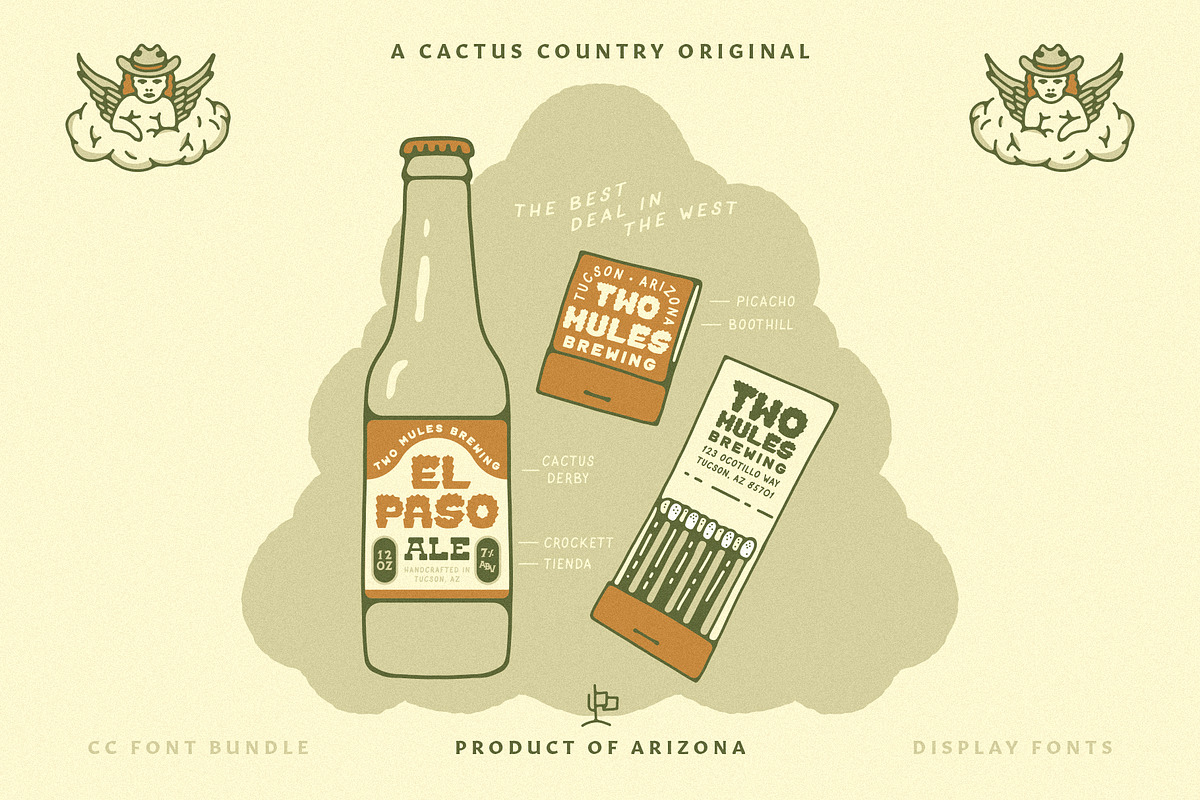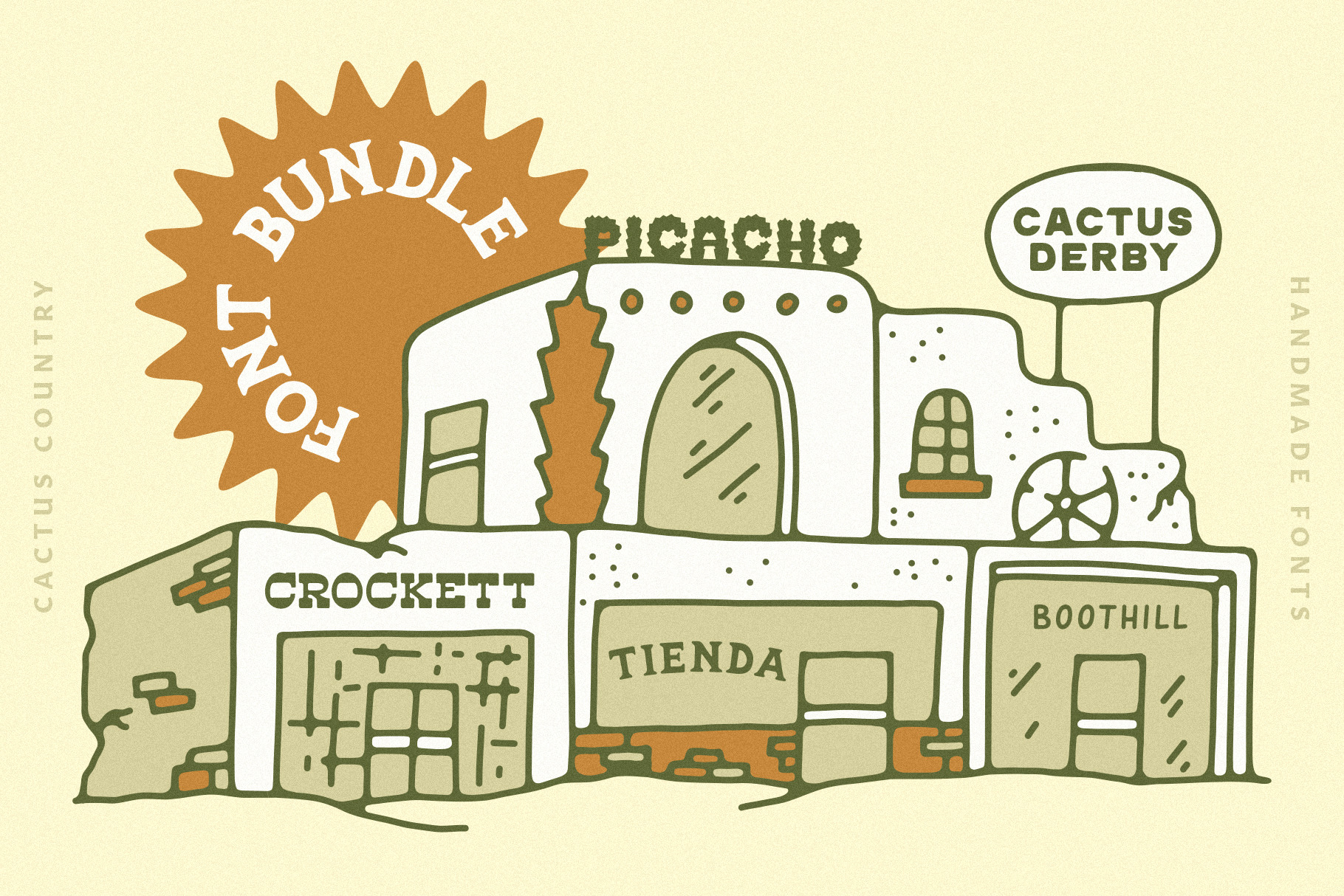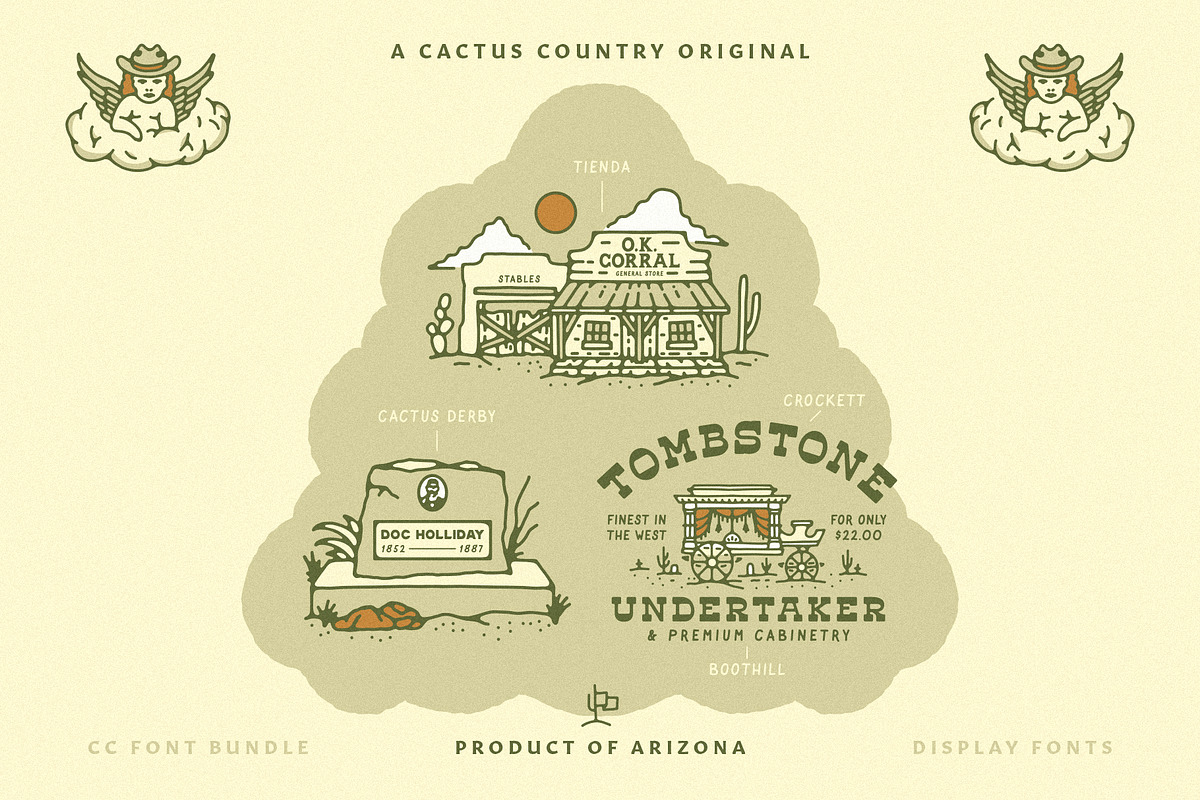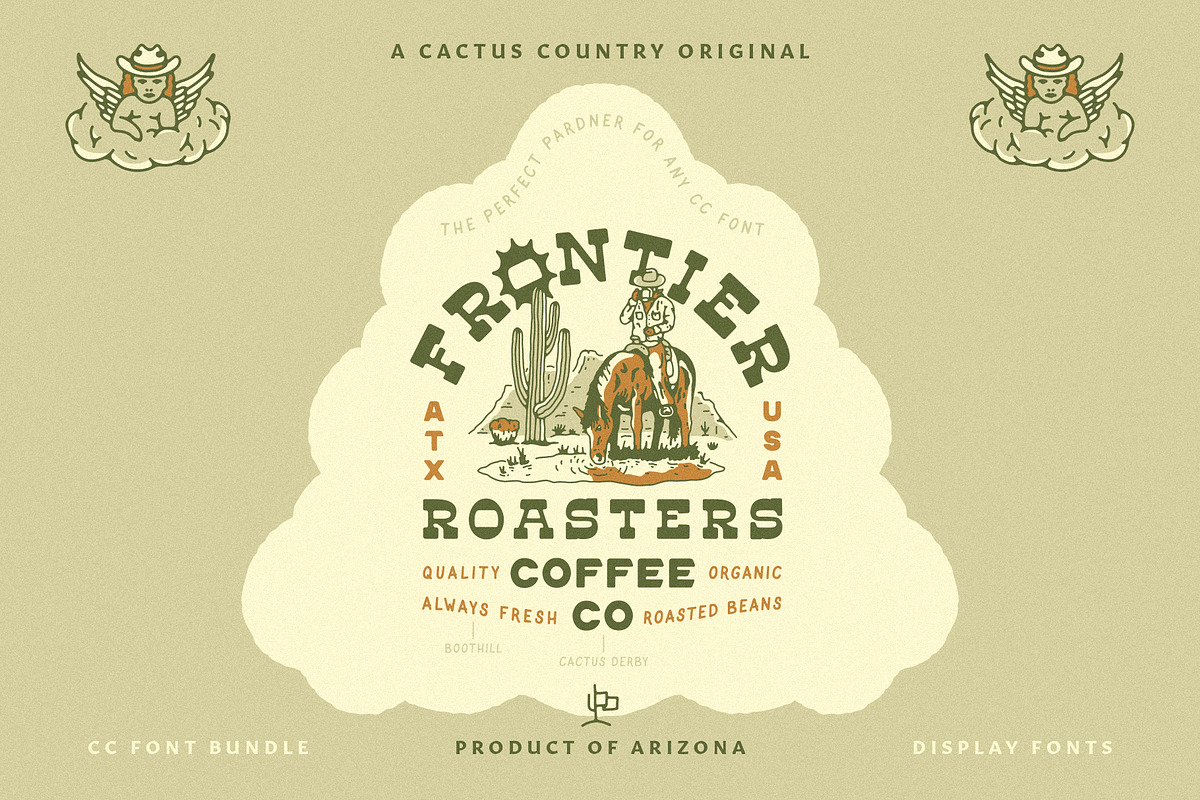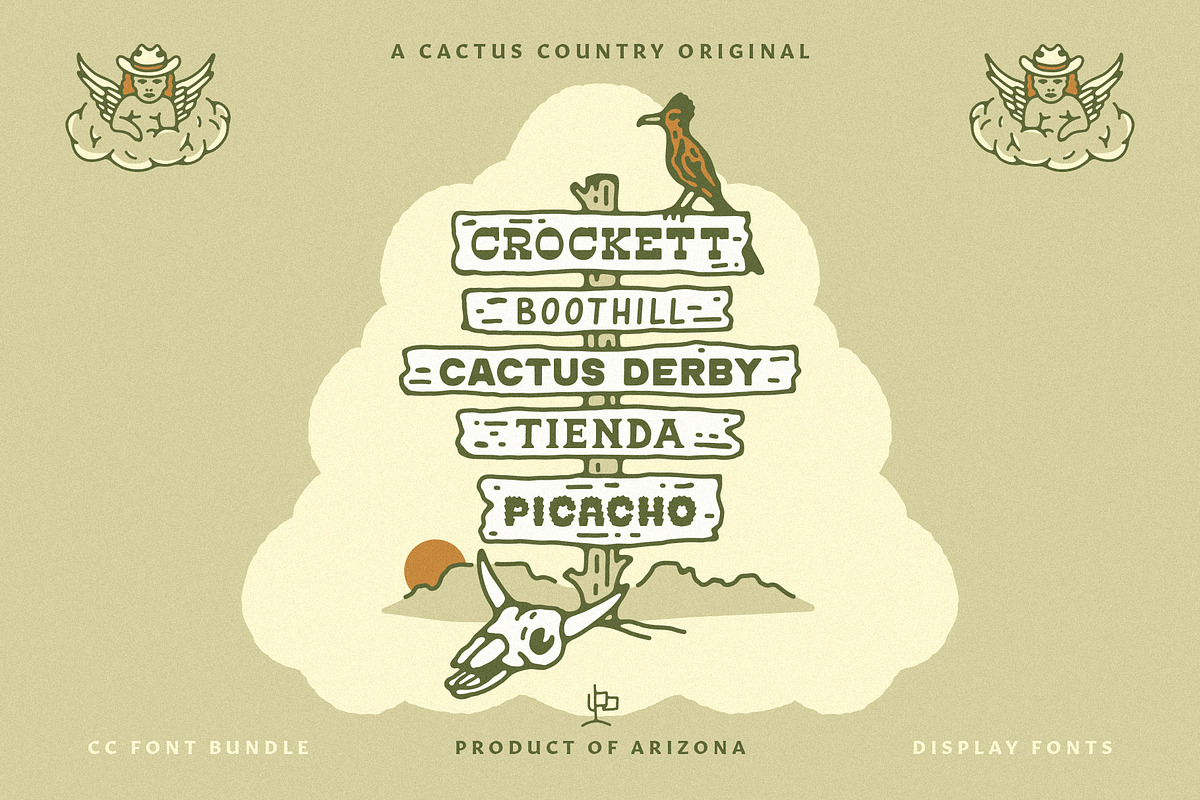
CC Heritage Display Font Bundle
Best deal in the West, get all of the Cactus Country original fonts in one discounted bundle package. All fonts are hand-drawn, inspired by the West, and are designed to work harmoniously with one another. Font bundle includes: Crockett, Boothill, Cactus Derby, Tienda, and Picacho.